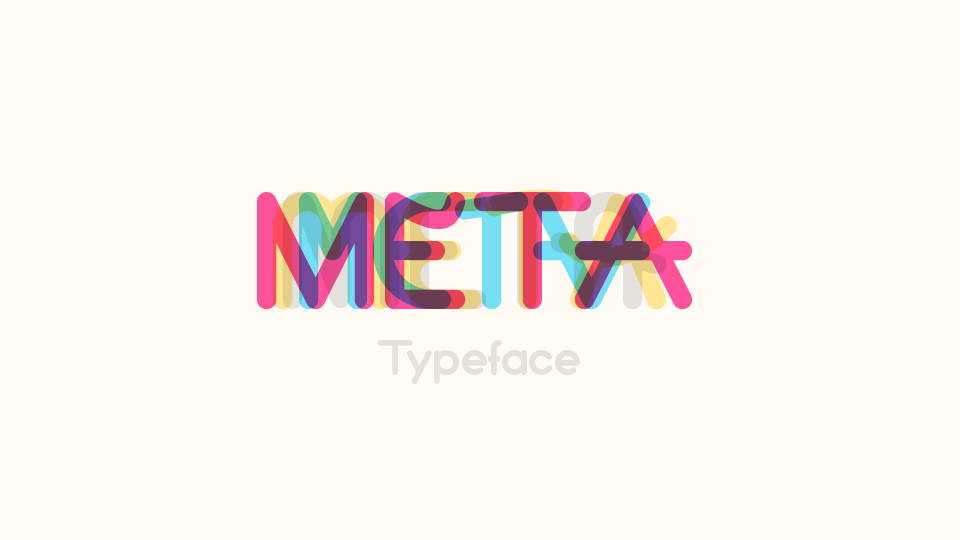
Download Meta typeface, a rounded geometric sans serif font family in two weights and a few creative alternate styles. Meta perfectly fits for branding, logotypes, badges and labels, package and posters design, headlines and text blocks and more.
Designer: Joël Maillot